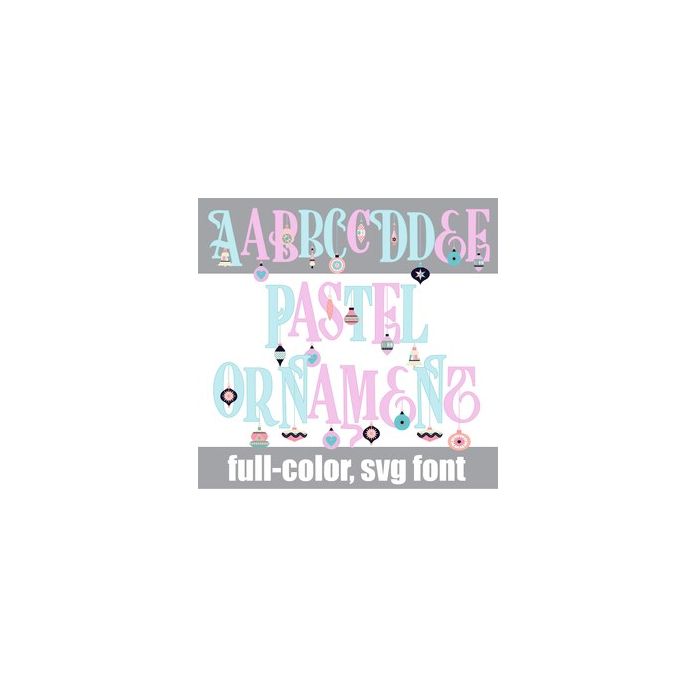
This full-color font features a pastel Christmas color palette and ornate lettering with Christmas ornaments. There is an alt case w/ additional colors you can access through your system or Silhouette's glyph map.